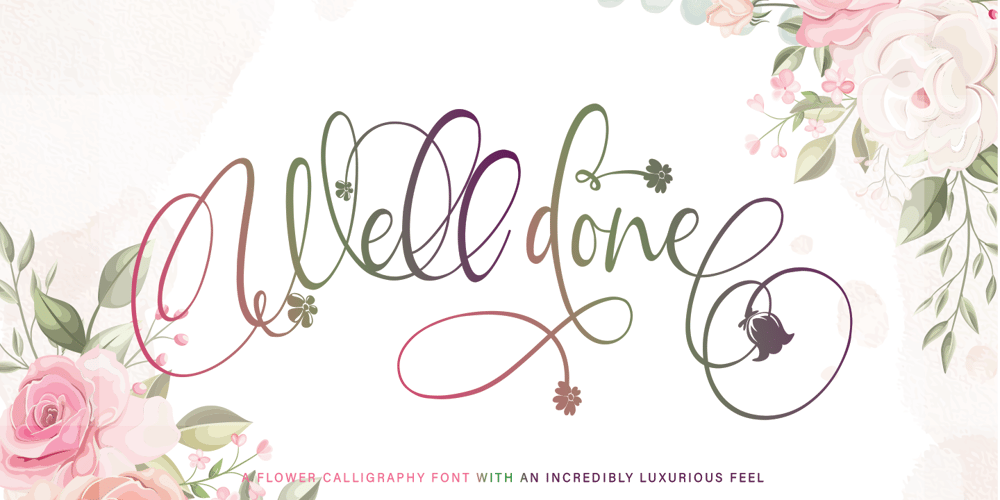
Well Done Font Family was designed by Thomas Aradea and published by Letterara. Well Done contains 1 styles and family package options. Well Done is a flower calligraphy font with an incredibly luxurious feel. It will add a romantic touch to any crafting project! Get inspired by its unique look!To stay up to date for my latest job, follow me and let’s be friends because there will be many promos.